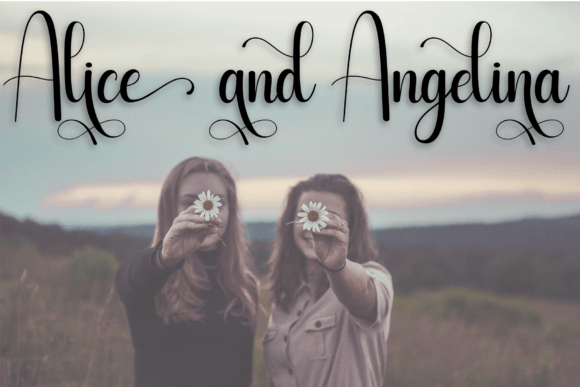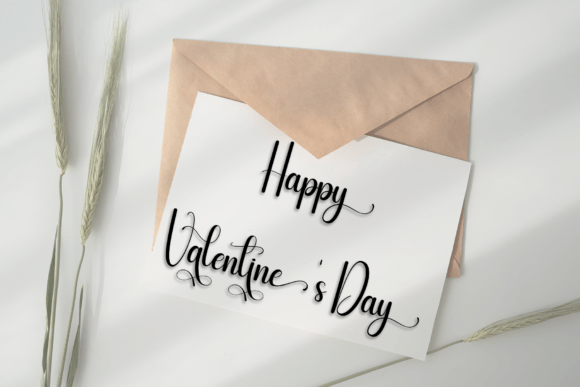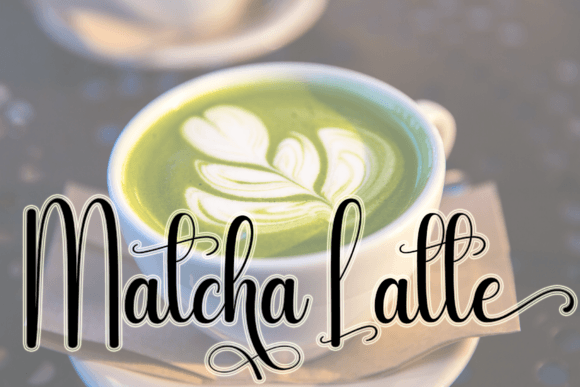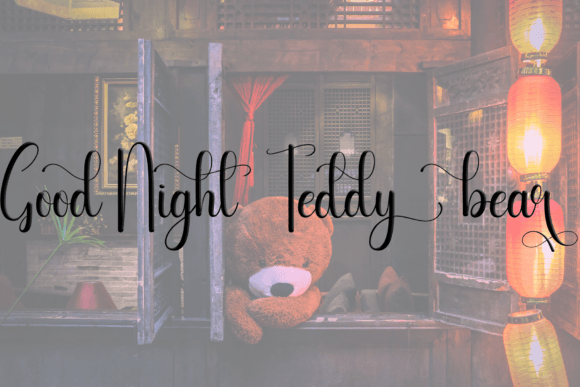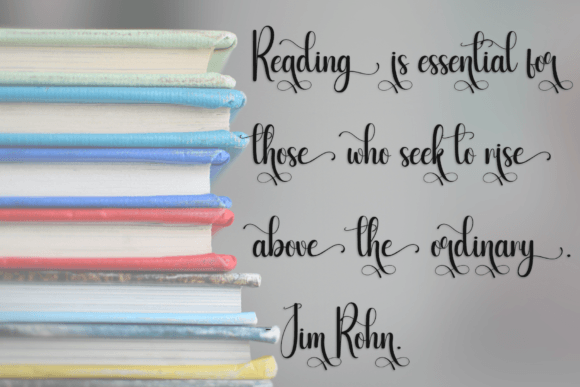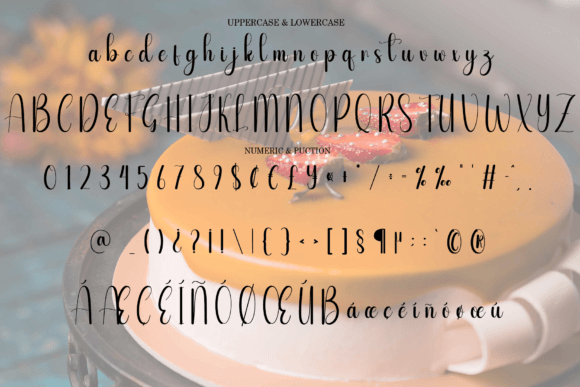
Cake Font: The Sweetest Addition to Your Design Projects
Are you looking for a font that can add a touch of sweetness and friendliness to your design projects? Look no further than Cake Font! This beautiful handwritten font is perfect for creating wedding invitations, greeting cards, and other designs that require a playful and fun touch.
What is Cake Font?
Cake Font is a sweet and friendly handwritten font that is designed to bring a sense of freshness and neatness to your designs. Its unique and elegant style makes it ideal for a variety of projects, from wedding invitations and cards to posters, flyers, and more.
Key Features of Cake Font
- Handwritten style: Cake Font has a beautiful handwritten style that gives it a personal and friendly touch.
- Fresh and neat: The font is designed to be fresh and neat, making it perfect for designs that require a clean and modern look.
- Versatile: Cake Font is versatile and can be used for a variety of projects, from wedding invitations and cards to posters, flyers, and more.
- Easy to read: The font is easy to read, making it perfect for designs that require a clear and concise message.
Uses of Cake Font
Cake Font is perfect for a variety of design projects, including:
- Wedding invitations: The font’s elegant and sophisticated style makes it perfect for wedding invitations and other wedding-related designs.
- Greeting cards: Cake Font is ideal for creating greeting cards for special occasions, such as birthdays, anniversaries, and holidays.
- Posters and flyers: The font’s fresh and modern style makes it perfect for creating posters and flyers for events, promotions, and more.
- Social media graphics: Cake Font can be used to create social media graphics, such as Facebook posts, Instagram stories, and more.
Benefits of Using Cake Font
Using Cake Font in your design projects can have several benefits, including:
- Unique and creative designs: The font’s unique and elegant style can help you create designs that stand out from the crowd.
- Time-saving: The font’s clear and concise style can help you save time when creating designs, as you don’t have to worry about the font being difficult to read.
Tips for Using Cake Font
Here are some tips for using Cake Font in your design projects:
- Use it for headings and titles: Cake Font is perfect for headings and titles, as it adds a touch of elegance and sophistication to your designs.
- Pair it with other fonts: The font can be paired with other fonts to create a unique and creative design.
- Experiment with different colors: Cake Font looks great in a variety of colors, so don’t be afraid to experiment and find the perfect color for your design.
Cake Font is a beautiful and versatile handwritten font that is perfect for designers and crafters who want to add a touch of sweetness and friendliness to their designs. With its fresh and neat style, Cake Font is ideal for a variety of projects, from wedding invitations and cards to posters, flyers, and more. Whether you’re a professional designer or a DIY crafter, Cake Font is a great addition to your design toolkit.
- What is Cake Font?: Cake Font is a sweet and friendly handwritten font that is designed to bring a sense of freshness and neatness to your designs.